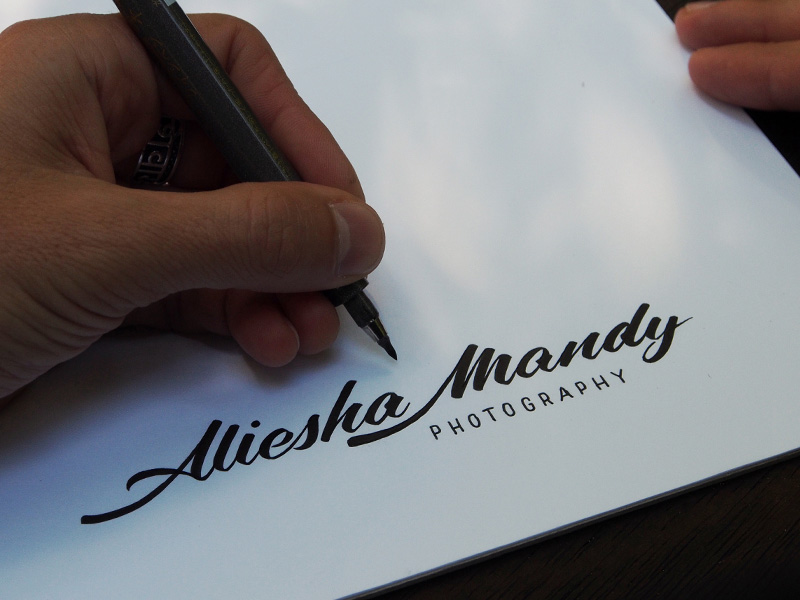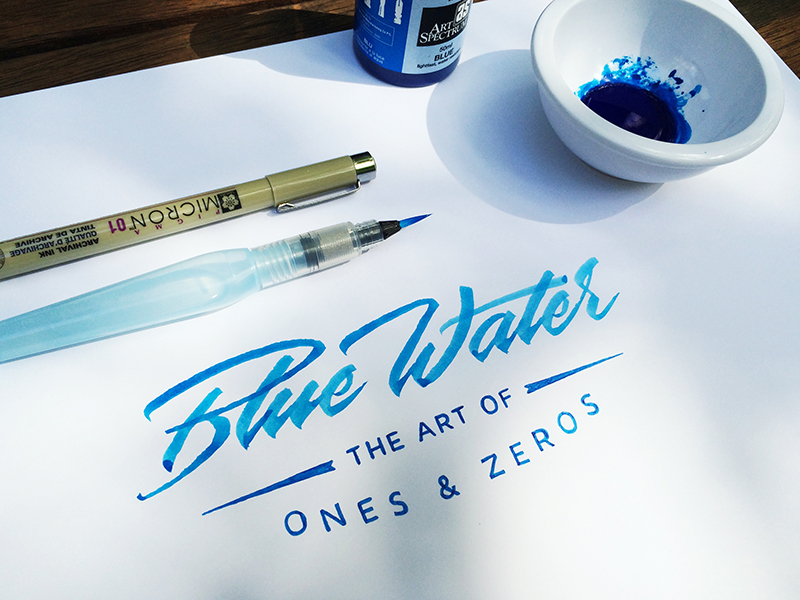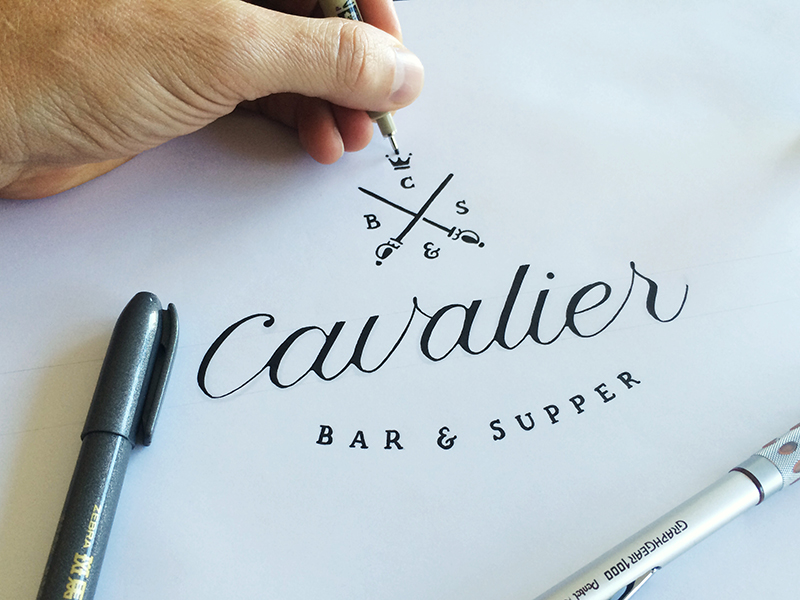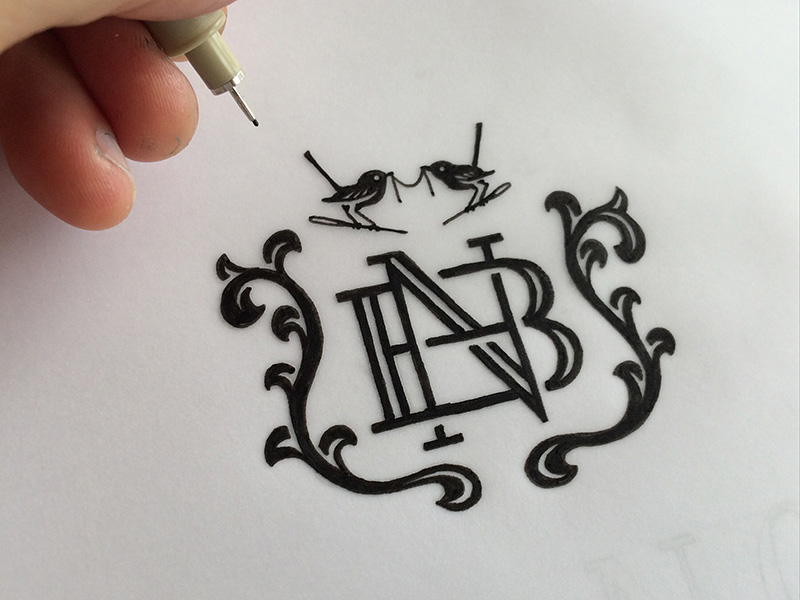
Lettering Legend - Matt Vergotis Interview
It's so exciting to announce that Gold Coast Australian Matt Vergotis is this months 'Lettering Legend'. Matt has been working freelance for seven years, specialising in typography and branding. Altogether he has over twenty years of experience in the design industry. Matt is truly talented at creating unique lettering designs, and it's very clear that a lot of thought and effort goes into every lettering piece of work he creates.
In the past he's shared a few videos and tips aimed at helping other letterers. He also very recently created a pretty great Skillshare class teaching you how to develop your brush lettering skills. With all of his knowledge, and the way he is continually inspiring others by giving back to the lettering community, he is truly deserving of the title 'Lettering Legend'.
Matt not only taught himself how to brush letter, but he also mastered the skill as a lefty (left handed person). Read great tips, find helpful information about illustration, left handed lettering, and advice on starting your own lettering business along with more below!
If you need a little reminder, a 'Lettering Legend' is someone who is or has been an inspiration to the hand lettering community. They may or may not be well known, they just need to have positively affected those around them through the use of lettering. Read more about legend criteria.
The whole world loses power, and has to resort to ways of the pre electric era. No more internet, computers or digitalisation. How much would this affect you as a letterer, and how would you adapt?
"Ha! Great question. Being a letterer today without all the electronic mumbo jumbo, eh? I’d love it! No more obsessive compulsive traits around publishing work to social media, checking in and looking at a little rectangular monitor… I like that world. I’d shift all that OCD towards better refining my craft, fine tuning curves to perfection and nailing the perfect composition, without having to rely on the digitalisation process to do so. I spend a good amount of time sketching and writing already and I’ll always try and nail that perfect composition, so I do have a comfortable relationship with crafting, but I find no matter how hard I can push a design on paper, there’s always room for refinement on the computer, so my time is split evenly. Without technology it would just mean 100% tool time.
Another issue would be that I’d immediately lose 95% of all enquiries that come through thanks to social media. I guess I could tackle that by doing a bit of sign spinning, roadside on a Monday morning."
Your website portfolio has a good amount of brush script lettering in it, and much of your Skillshare class is focused on learning brush lettering. What led you more towards brush script over other types of lettering?
"I probably illustrate letters 40% of the time and do brushpen calligraphy 60%. I started out illustrating everything, even the stuff that looks like it’s done with a brush pen and eventually I wanted to grow as a designer and get the results organically by wielding the pen. There’s so much more movement and flow you can capture when writing words - It’s instinctive realtime flow, rather than visualised flow when compared to illustrating your words. That said there are different styles that I prefer to use to illustrate words. It really comes down to the client and what approach I feel will suit them best."
You’ve been running a business specialising in identity, rebranding and lettering for quite some time now, do you have any tips for those looking to start their own lettering businesses? Are there any do’s, or definite do nots?
"Sounds cliché but you have to want it, you have to love it and you have to stay passionate. The moment you lose that passion, it reflects in your work. I always tackle every client job with an enthusiasm to do the best I can. If I wouldn't publish something on my website, I won’t show the client. Set yourself ridiculously high standards and try and turn up every day and deliver them. As for don’ts, try not to get lost in distractions."
Some of your logo designs include little icons / illustrations. Are illustration skills just as important as lettering skills for those wanting to specialise in lettering logos?
"In some instances you can complement a lettering style logo with a mark or lock-up. So yes, being able to have those illustration skills to match the style and integrity of the lettering is very important for continuity and execution. I started this industry as a conceptual mark / logo designer before lettering came into my life, so I always had a handle on mark execution.
For me it’s important to have a flexibility to jump from one style to the next so you can be relevant to a variety of clients requiring completely different identities. A corporate client like a finance company is just as important to me as, say a trendy clothing label, so it’s super important for a designer wanting to specialise in corporate identity to have that depth and variety in styles. Specialising in only lettering logos will pigeonhole your clientele fetch, so if you can illustrate marks then it’s definitely going to help."